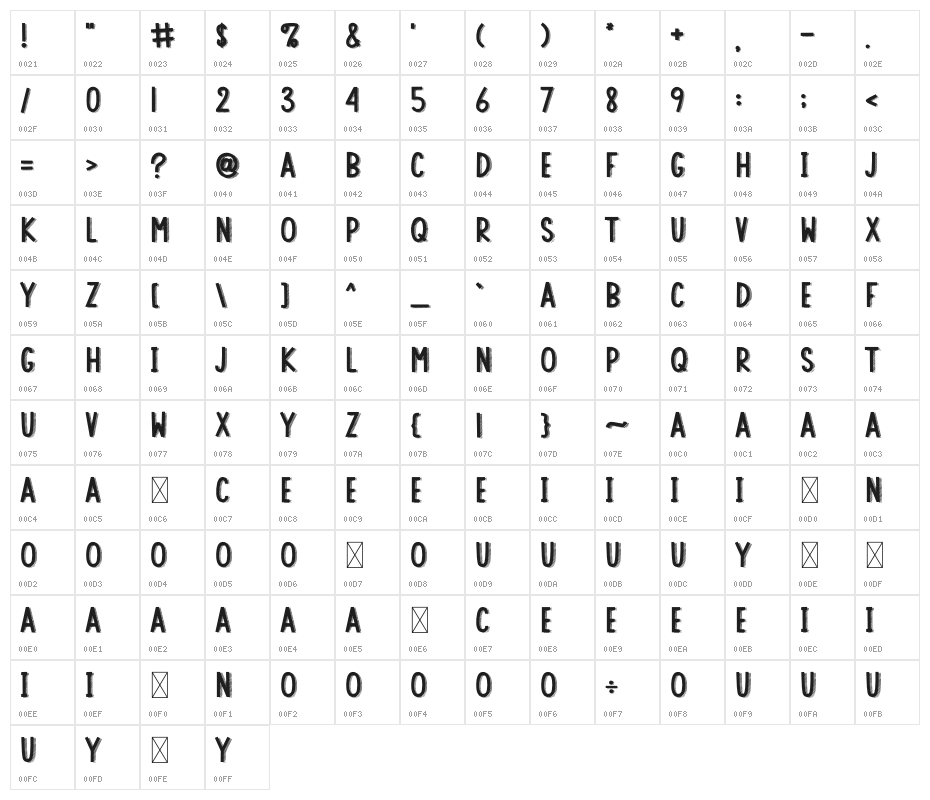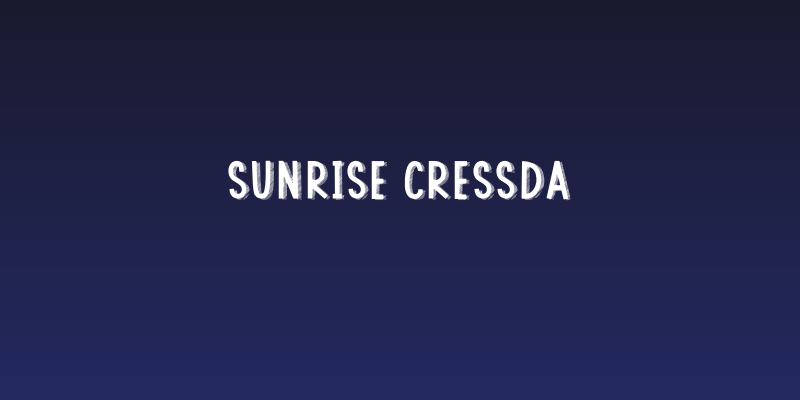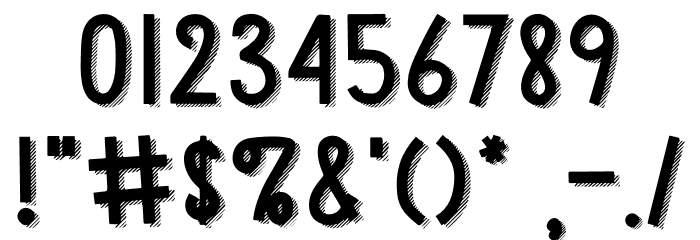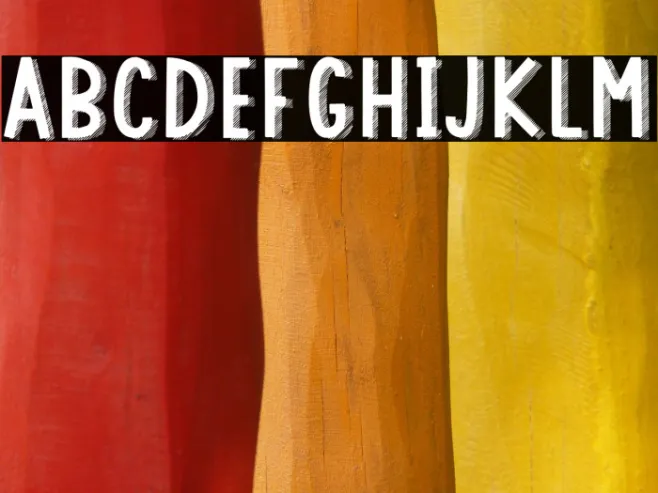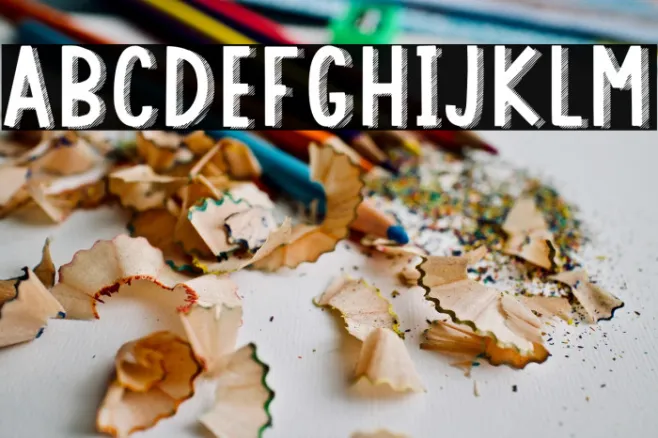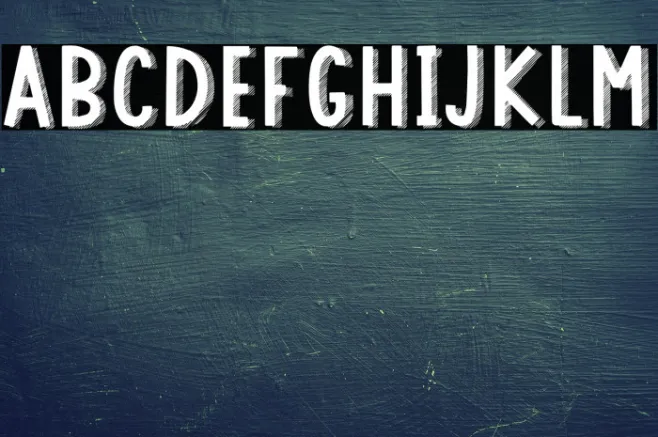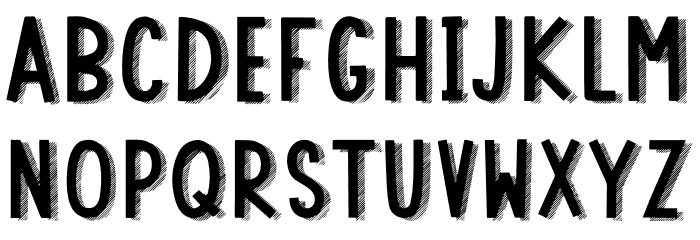
SUNRISE CRESSDA Font
SUNRISE CRESSDA Description
This font features a bold and dynamic style with a hand-drawn, sketch-like appearance. Each character is filled with diagonal hatching, giving it a textured and artistic look. The uppercase letters are strong and impactful, while the lowercase letters maintain a consistent style, offering a cohesive visual experience. The numerals are clear and distinct, matching the overall boldness of the alphabet. Special characters are included, maintaining the same textured design, making this font versatile for various creative applications. Its unique style makes it suitable for projects that require a touch of creativity and boldness.
| Overall Style | Artistic, Creative |
| Proposed Projects | Ideal for posters, artistic branding, book covers, and creative advertising. |